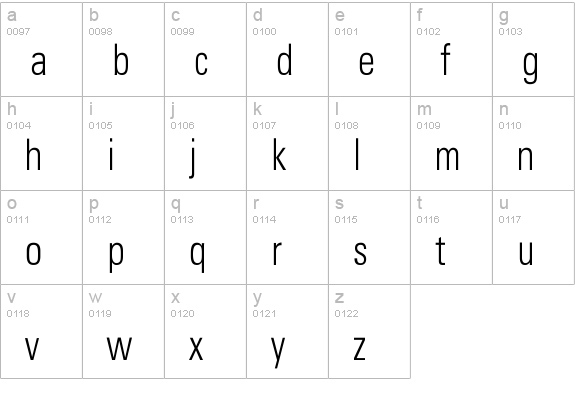
Beetham-CondensedLight is a sleek and modern font that exudes elegance and sophistication. With its clean lines and condensed design, this typeface is perfect for adding a touch of refinement to any project. The light weight of the font gives it a delicate and airy feel, making it ideal for use in designs that require a subtle touch. What's even better is that Beetham-CondensedLight is available for free download at FontsMarket.com. This means you can easily access this beautiful font without any cost, making it a valuable addition to your font collection. Whether you're working on a branding project, a website design, or any other creative endeavor, Beetham-CondensedLight will elevate your work with its sophisticated look and feel. Download it today and enhance your designs with this stunning typeface.